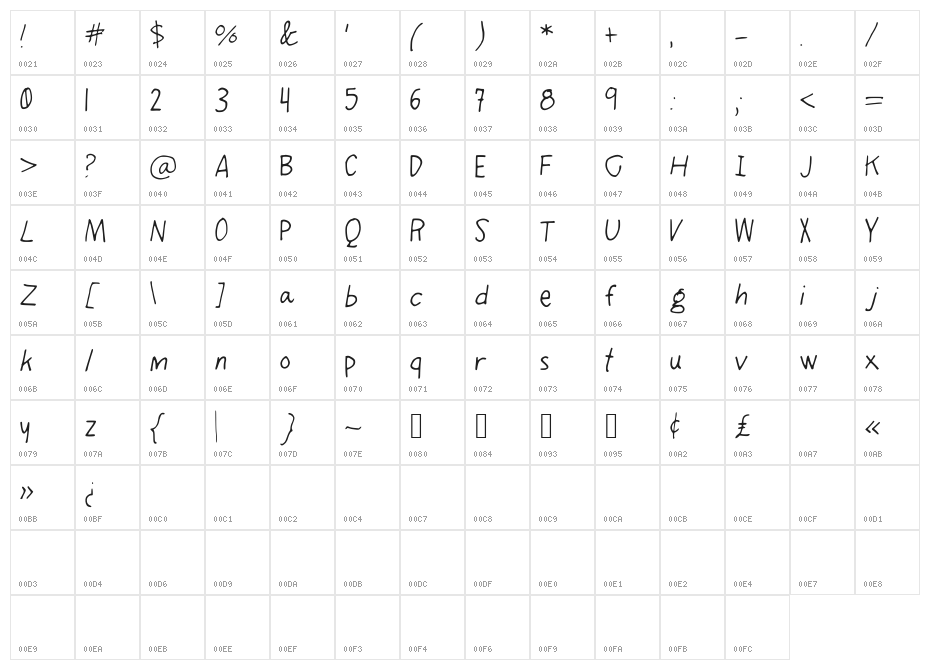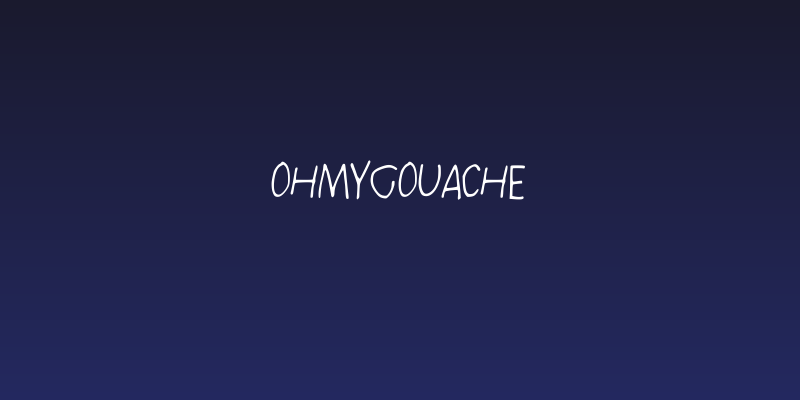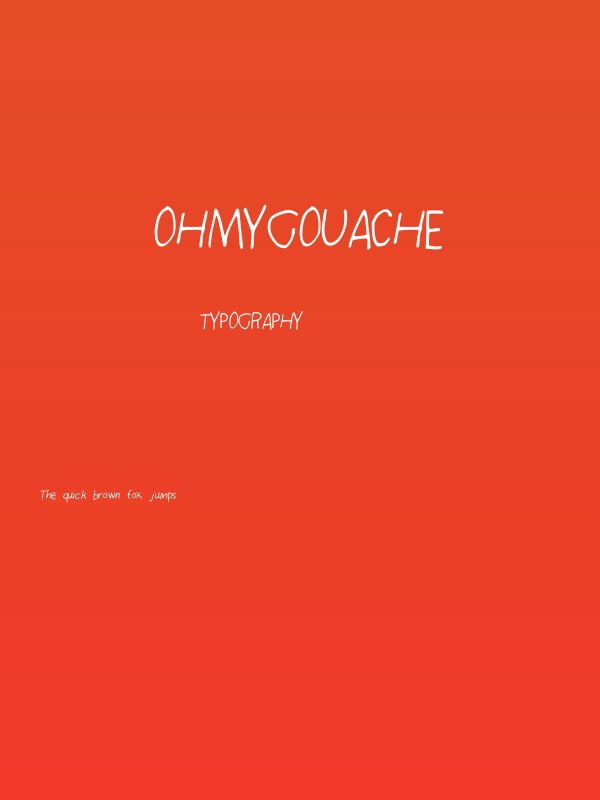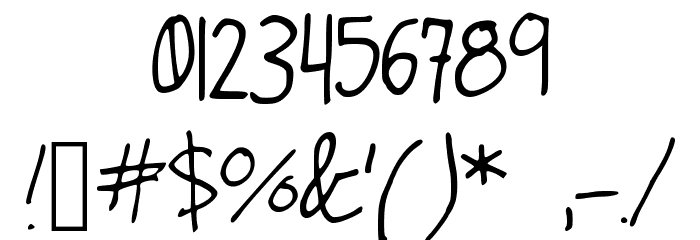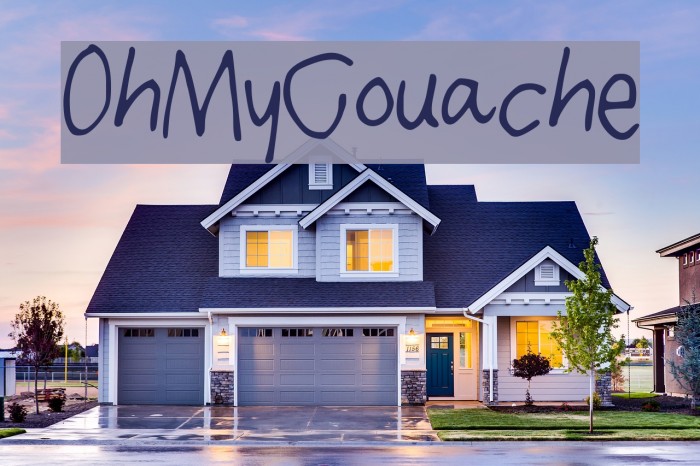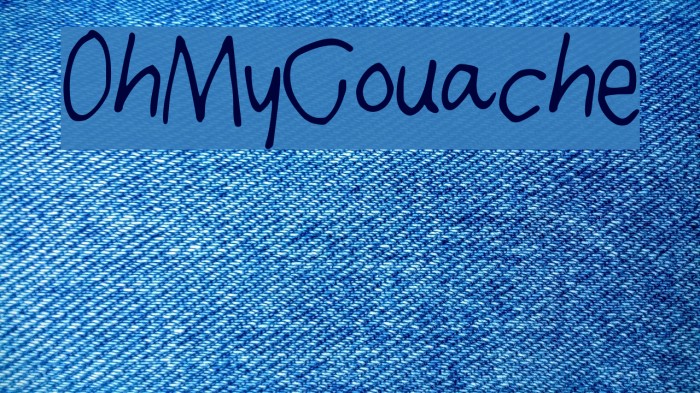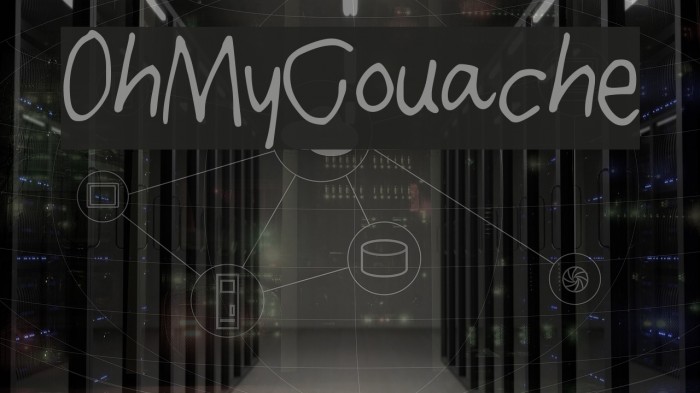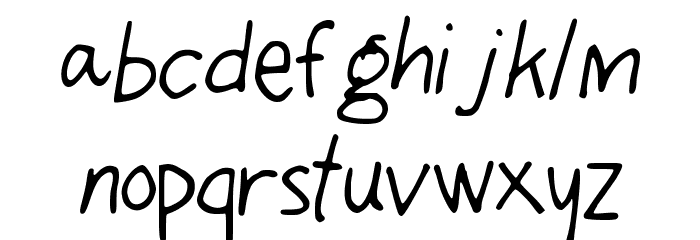
OhMyGouache Font
OhMyGouache Description
This playful and informal font features a handwritten style with a casual and friendly appearance. The letters are slightly irregular, adding a personal touch that mimics natural handwriting. The strokes are smooth and consistent, with a medium thickness that ensures readability while maintaining a relaxed vibe. The characters are well-spaced, providing a balanced look that is neither too tight nor too loose. This font includes a full set of uppercase and lowercase letters, numbers, and a variety of special characters, making it versatile for different uses. Its unique style is perfect for projects that require a personal or creative touch.